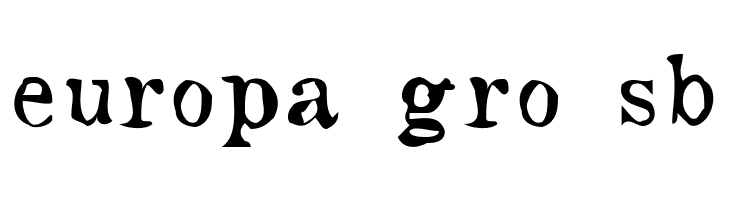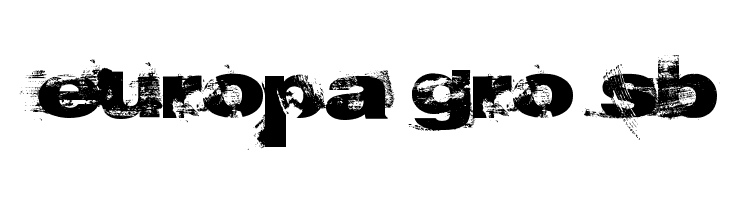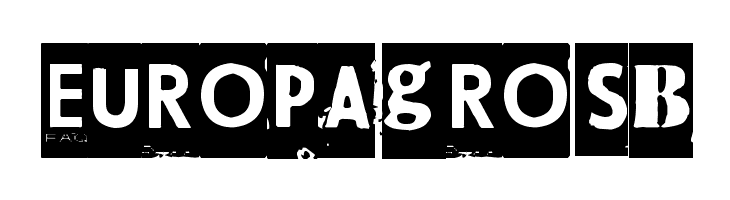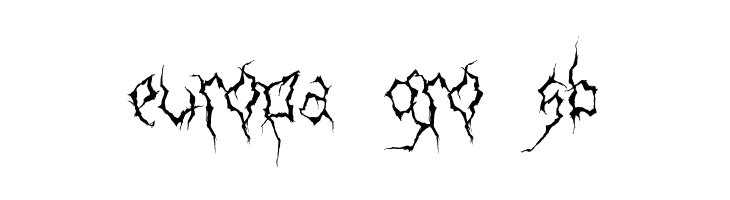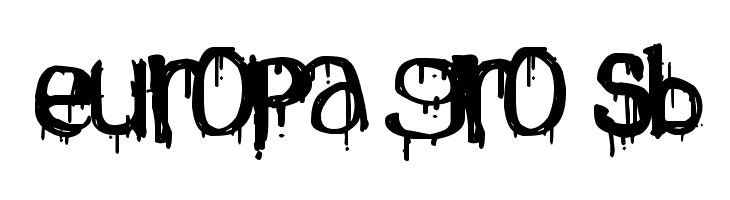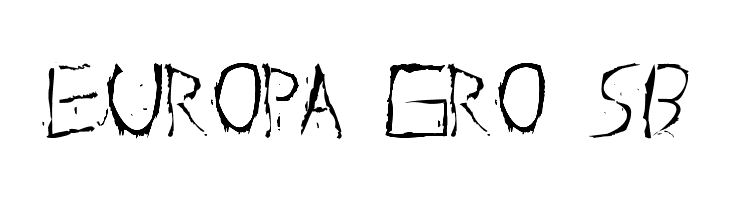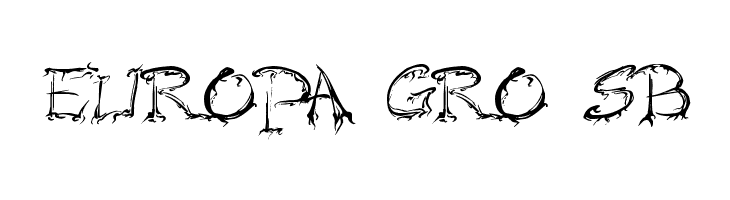
( Fonts by Daniel Werneck )
A bold, decorative serif font with high contrast and elegant curves.
( Fonts by www.junkohanhero.com )
A bold, distressed font with a grunge, cut-out style.
( Fonts by Lecter Johnson - doubletwostudios.tumblr.com )
A jagged, thorn-like font with a dark, chaotic aesthetic.
A bold, decorative font with unique spiral embellishments.